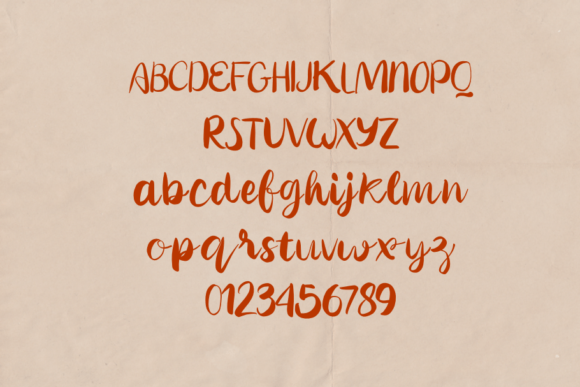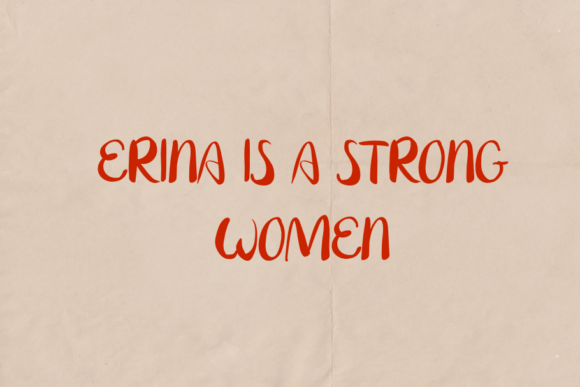
Introducing Erina Font: The Epitome of Beauty in Handwritten Script
In the world of typography, few fonts manage to capture the essence of elegance and sophistication as effortlessly as Erina Font. This stunning handwritten script font is designed to bring a touch of refinement and luxury to any design project. With its graceful strokes and charming curves, Erina is the perfect choice for designers and crafters looking to add a dash of personality and style to their work.
The Beauty of Erina Font
Erina Font is a masterclass in typographic design. Each letter is carefully crafted to exude a sense of beauty and poise, making it an ideal choice for projects where aesthetics are paramount. The font’s flowing script and delicate connections between letters create a sense of movement and fluidity, drawing the eye effortlessly across the page.
One of the standout features of Erina Font is its versatility. Whether you’re designing a wedding invitation, a greeting card, or a branding campaign, this font is guaranteed to make a lasting impression. Its sophisticated and handcrafted feel lends itself perfectly to a wide range of applications, from formal events to everyday stationery.
For designers and crafters working on wedding-related projects, Erina Font is an inspired choice. Its elegant and refined aesthetic makes it perfect for wedding invitations, save-the-date cards, and other formal stationery. The font’s beautiful script and flowing connections between letters evoke a sense of romance and sophistication, setting the tone for a truly unforgettable event.
Similarly, Erina Font is an excellent choice for greeting cards and other celebratory stationery. Whether you’re designing a birthday card, a thank-you note, or a holiday greeting, this font is sure to add a touch of warmth and personality to your design. Its charming curves and delicate strokes create a sense of intimacy and connection, making the recipient feel special and valued.
Bringing Beauty and Grace to Every Letter
Erina Font is more than just a font – it’s a design statement. With its exquisite craftsmanship and attention to detail, this font is guaranteed to elevate your design projects to new heights. Whether you’re a seasoned designer or a crafty DIY enthusiast, Erina Font provides the perfect tools to transform your words into a work of art.
One of the key benefits of Erina Font is its ability to add a human touch to your designs. In an era of digital communication, it’s easy to lose sight of the personal and emotional aspects of communication. Erina Font helps to bridge this gap, bringing a sense of warmth and personality to your designs that’s hard to find with more traditional fonts.
Key Features and Benefits of Erina Font
- Elegant and refined aesthetic: Erina Font features a beautiful handwritten script that’s perfect for formal events and sophisticated designs.
- Versatile and adaptable: This font can be used for a wide range of applications, from wedding invitations to greeting cards and branding campaigns.
- Handcrafted feel: Erina Font’s delicate strokes and charming curves create a sense of intimacy and connection, making it perfect for designs that require a personal touch.
- Easy to read and understand: Despite its elegant and refined aesthetic, Erina Font remains clear and legible, making it perfect for body text and longer passages.
| Font Name | Erina Font |
| Author | Syukursetiyadi |
In conclusion, Erina Font is a stunning handwritten script font that’s guaranteed to add a touch of elegance and sophistication to your design projects. With its beautiful craftsmanship, charming curves, and delicate strokes, this font is the perfect choice for designers and crafters looking to create something truly special. Whether you’re working on a wedding invitation, a greeting card, or a branding campaign, Erina Font provides the perfect tools to transform your words into a work of art.